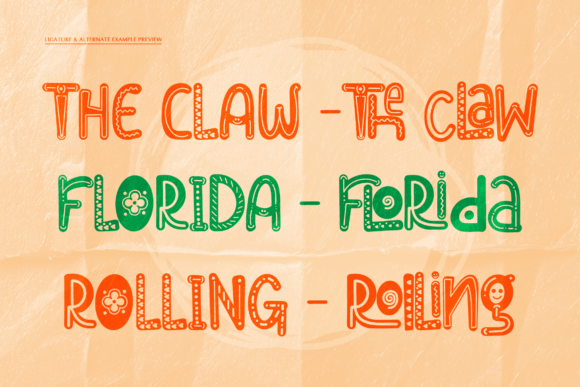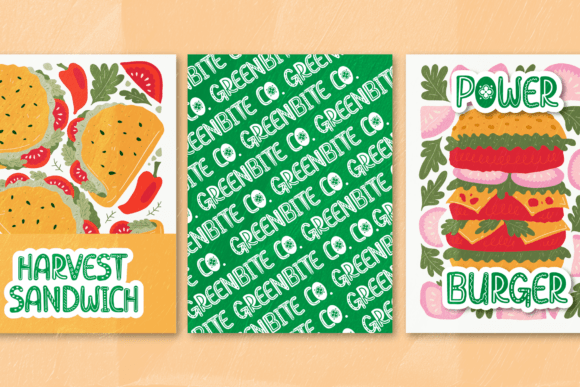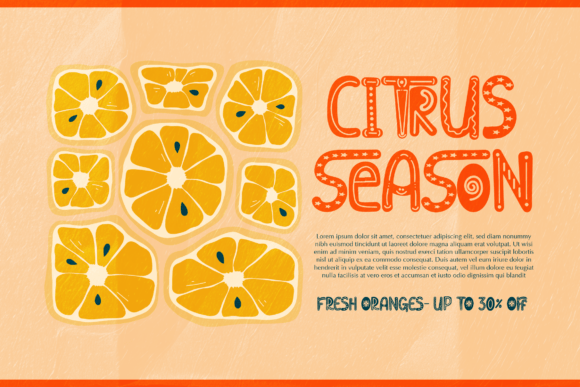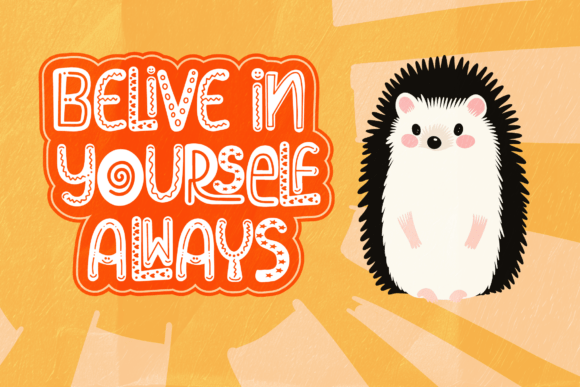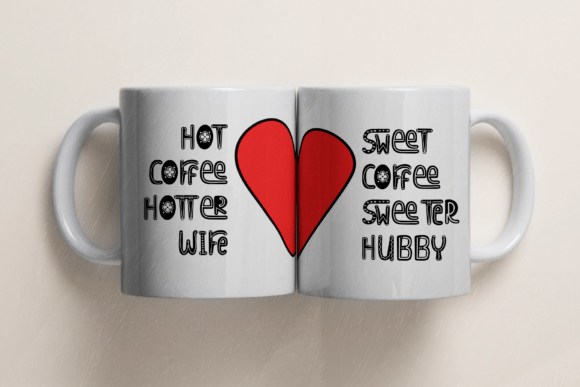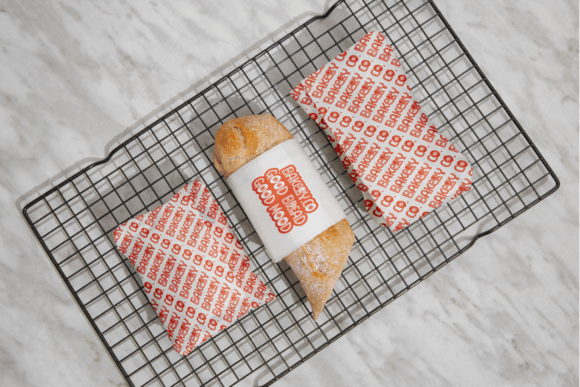
Introduction to Funny Alfredo Font
Funny Alfredo is a lively hand-drawn font bursting with charm and creativity.
Each letter has its own playful decoration, making this font perfect for childrenโs books, DIY crafts, party invites, classroom materials, and anything that needs a joyful, doodle-style touch With over 380 glyphs, alternates, and ligatures, itโs as versatile as it is fun.
Key Features of Funny Alfredo Font
Why Choose Funny Alfredo Font?
Funny Alfredo Font offers exceptional quality and versatility, making it a valuable addition to your design toolkit. Whether you’re creating for personal projects or commercial use, Funny Alfredo Font delivers professional results.